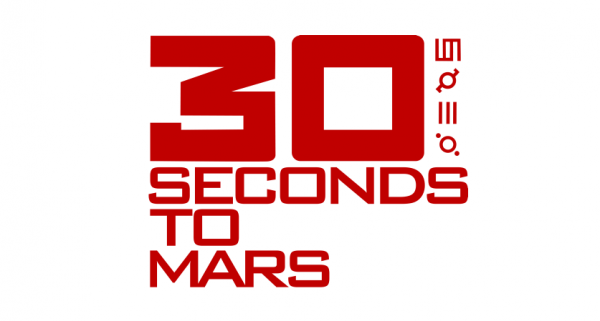
Thirty Seconds to Mars Font
BandThirty Seconds to Mars, commonly stylized as 30 Seconds to Mars, is an American rock band from Los Angeles, California, formed in 1998.
The logo above is the first logo for the group, as can be seen on their self-titled debut album. The logo features the band name in a sans serif font, probably Bank Gothic. Next to the bold “30″ are four vertically aligned symbols. There is no explanations from the band as to the meaning of these symbols, but some holds that they symbolize each of the four terrestrial planets or simply represent the band’s name.
This logo can be seen from their second album A Beautiful Lie, and the font used is probably Helvetica Neue.
Logo from the third album This Is War, released in December, 2009. The font used is Gotham Bold.
Love, Lust, Faith and Dreams, the fourth album from Thirty Seconds to Mars, saw a logo set in geometric sans. The font used is Futura.